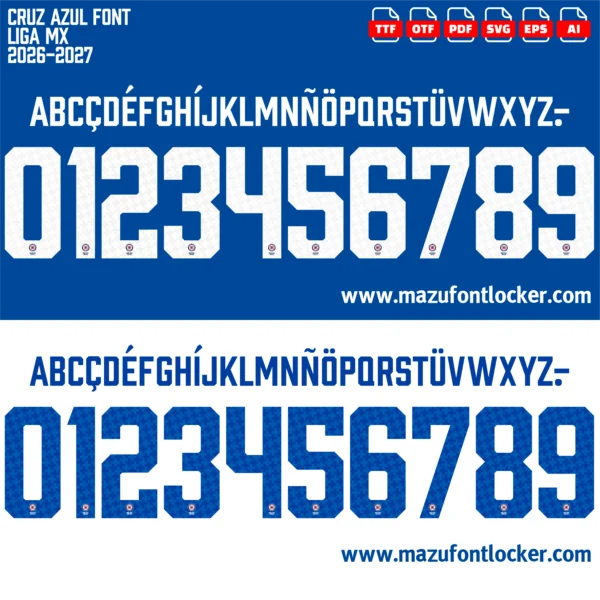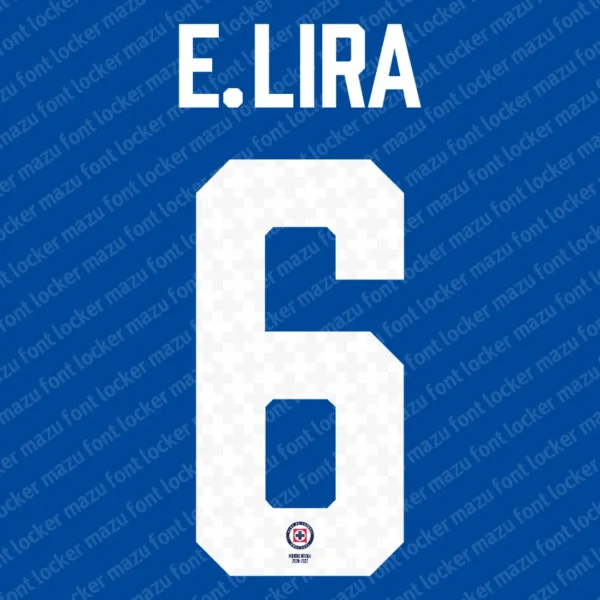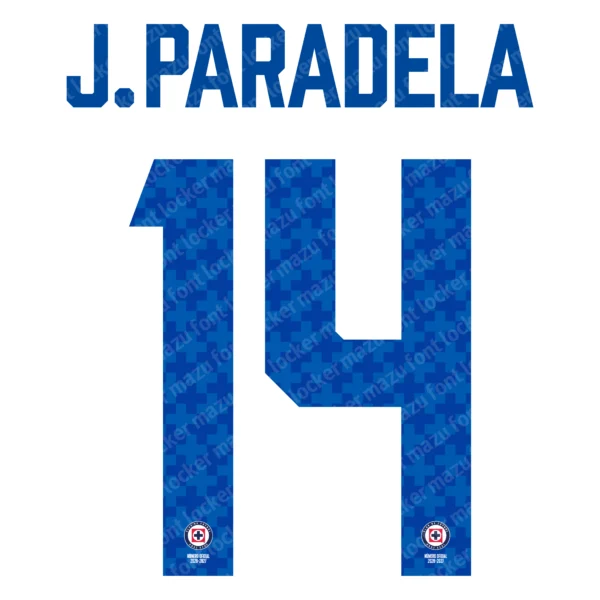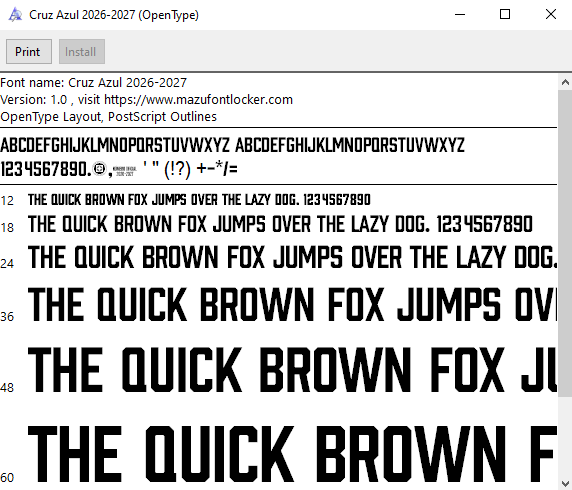
Cruz Azul 2026-2027 Font Vector – Epic La Máquina Blue Masterpiece
This font captures the commanding, sharp, and powerful lettering that perfectly embodies Cruz Azul’s legendary fighting identity, proud Mexican football heritage, never-say-die mentality, and explosive La Máquina energy — delivering unmatched authenticity, premium quality, raw power, and elite Liga MX dominance for professional jersey mockups, dynamic football graphics, premium sports branding, passionate fan creations, and high-end design projects.
Cruz Azul 2026-2027 Font Vector – Iconic Blue Typeface
The Cruz Azul 2026-2027 Font Vector is a premium typeface that accurately recreates the official match lettering worn by Cruz Azul during the highly anticipated 2026-2027 season. This high-quality vector font kit captures the bold, dynamic, and instantly recognizable typography that perfectly complements the club’s iconic sky blue identity.
Designed for professional designers, football enthusiasts, and passionate Cruz Azul supporters, the Cruz Azul 2026-2027 Font Vector delivers exceptional authenticity for creating realistic jersey mockups, football merchandise, social media graphics, match posters, and custom fan artwork. Every character has been carefully recreated to match the modern and powerful visual style of one of Mexico’s most historic football clubs.
Why Choose Cruz Azul 2026-2027 Font Vector
This font stands out thanks to its precise vector construction and authentic club styling. Every letter and numeral has been meticulously recreated to match the official shirt lettering used throughout the 2026-2027 Liga MX campaign. Whether you’re producing professional kit templates or creating eye-catching football content, the Cruz Azul 2026-2027 Font Vector delivers a genuine match-ready appearance.
The lettering featured in the Cruz Azul 2026-2027 Font Vector combines clean geometric lines with powerful modern proportions. The result is a premium and highly readable typeface that reflects Cruz Azul’s fighting spirit, rich tradition, and relentless ambition on the pitch.
- Complete uppercase A–Z alphabet and numbers 0–9 in authentic Cruz Azul 2026-2027 style
- Create authentic Cruz Azul 2026-2027 home and away jersey mockups
- Produce custom Cruz Azul-inspired merchandise and fan projects
- Includes authentic Liga MX badge glyph placement beneath player numbers
Cruz Azul 2026-2027 Season
The 2026-2027 season represents a new chapter for Cruz Azul as they push for major honours in Liga MX and international competitions. Known for their passionate fanbase and never-say-die attitude, La Máquina continues to wear their iconic blue with pride while chasing glory both domestically and abroad.
The Cruz Azul 2026-2027 Font Vector is an independently designed typeface package inspired by the official shirt lettering worn during the 2026-2027 season. It has been carefully recreated for football enthusiasts, graphic designers, collectors, and creators producing custom jersey concepts, football artwork, and fan-made projects.